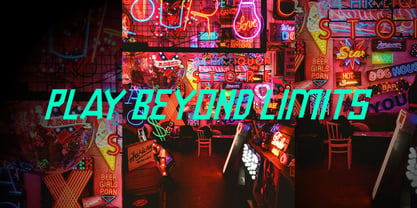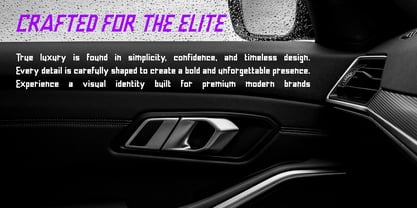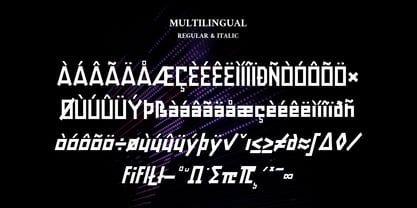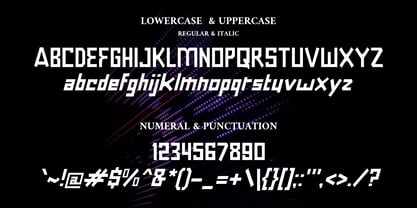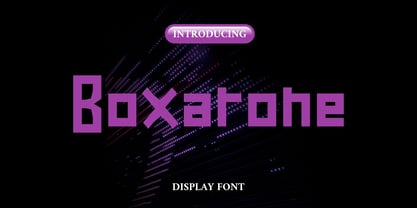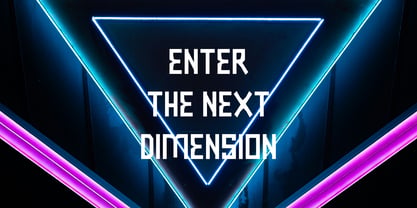
Boxarone
BOXARONE is a bold futuristic display font designed to deliver strong visual impact with a clean geometric structure. Inspired by cyberpunk aesthetics, modern gaming culture, and sci-fi typography, this typeface combines sharp modular forms with a powerful contemporary presence.
Its thick construction and unique letterforms make BOXARONE perfect for standout headlines, esports branding, technology posters, album covers, digital content, movie titles, streetwear visuals, and futuristic identity systems.
Whether used for large-scale titles or experimental visual projects, BOXARONE creates a confident and energetic atmosphere that instantly captures attention